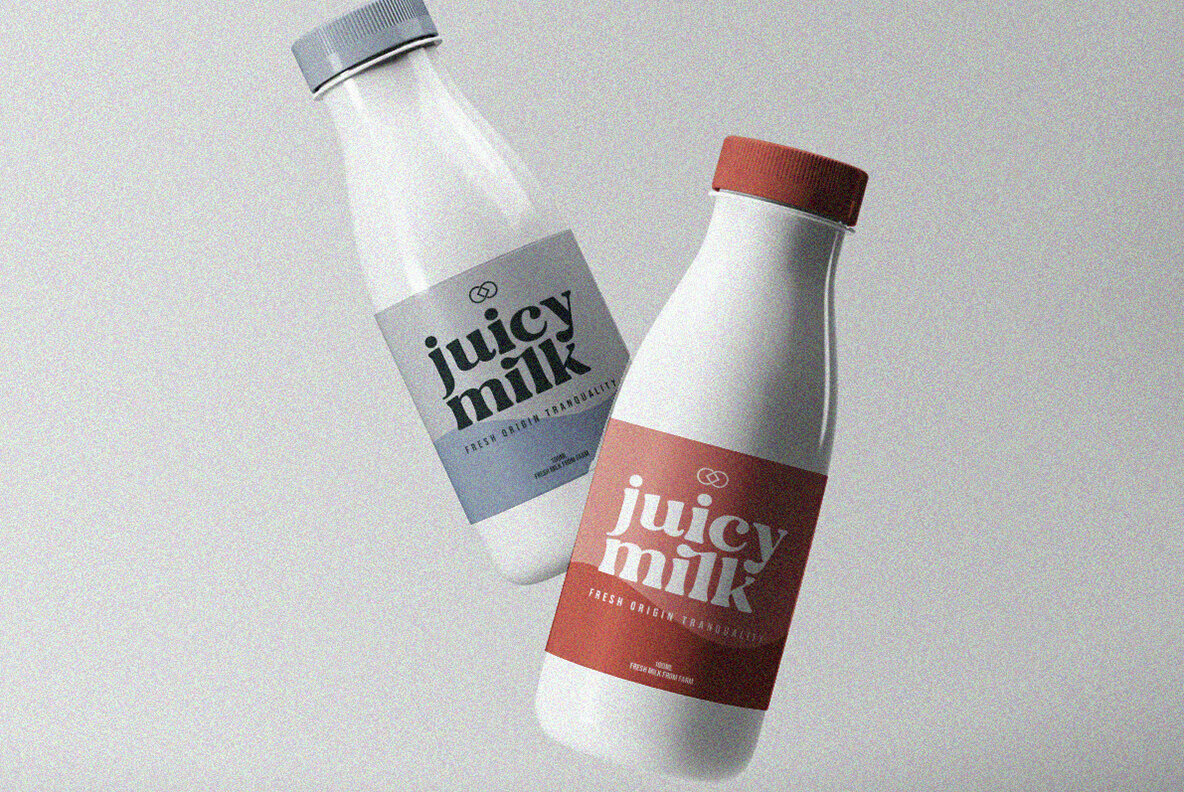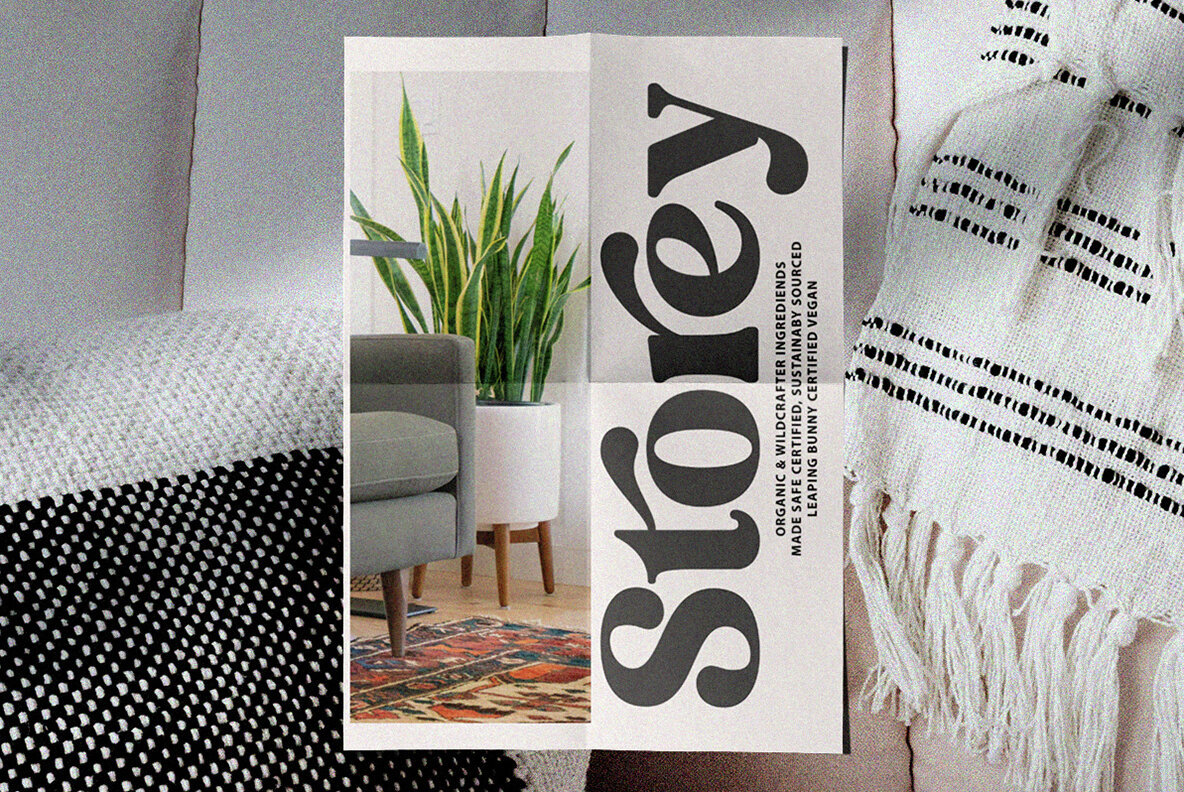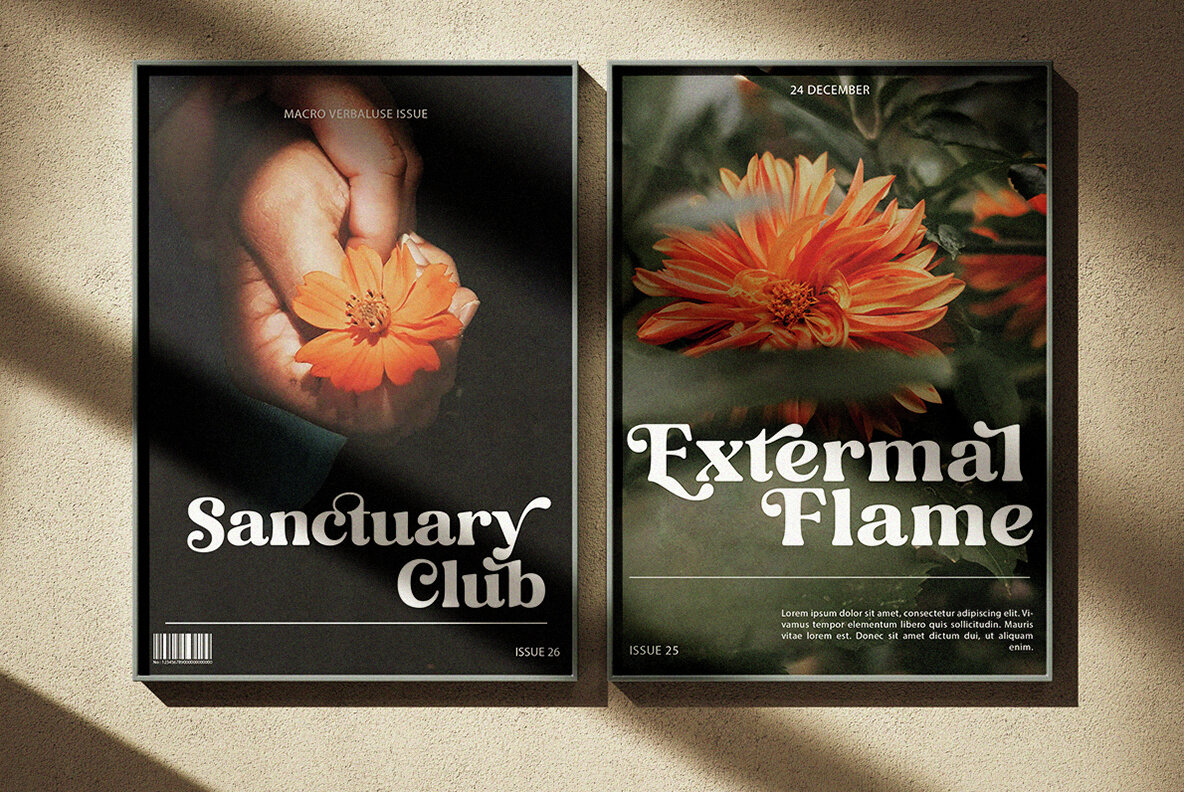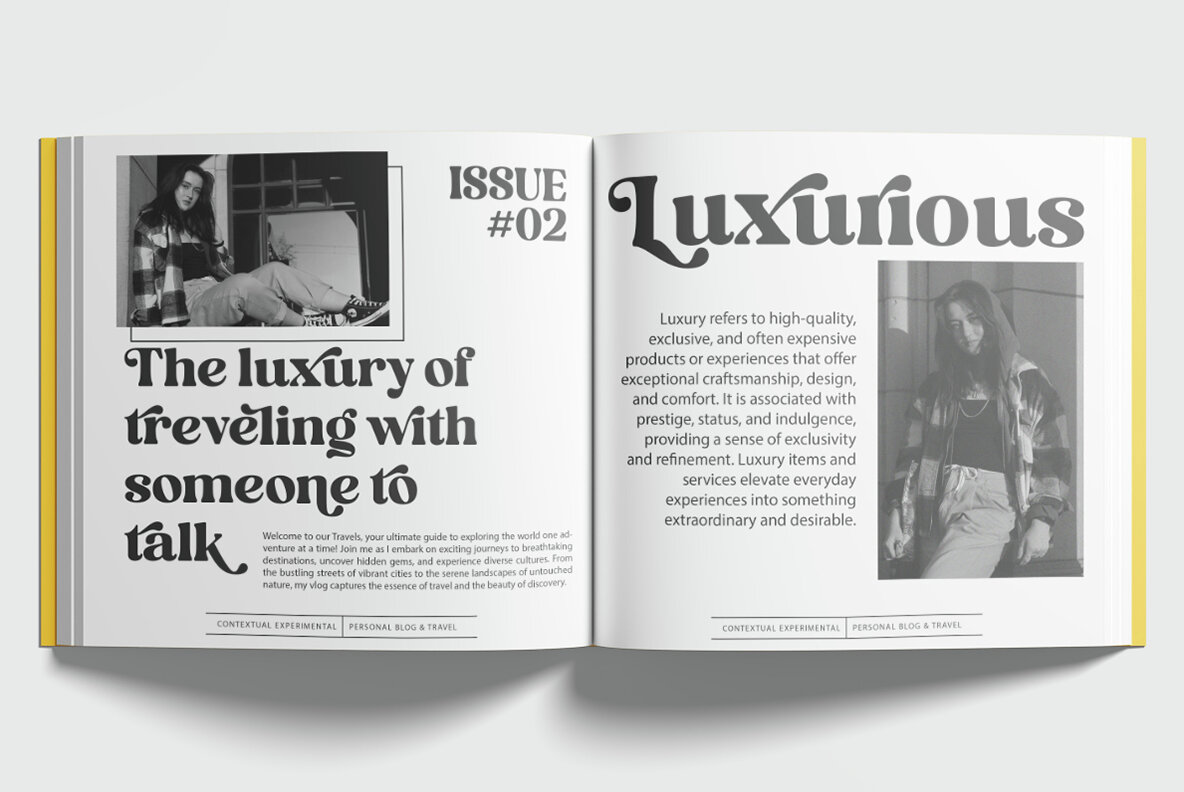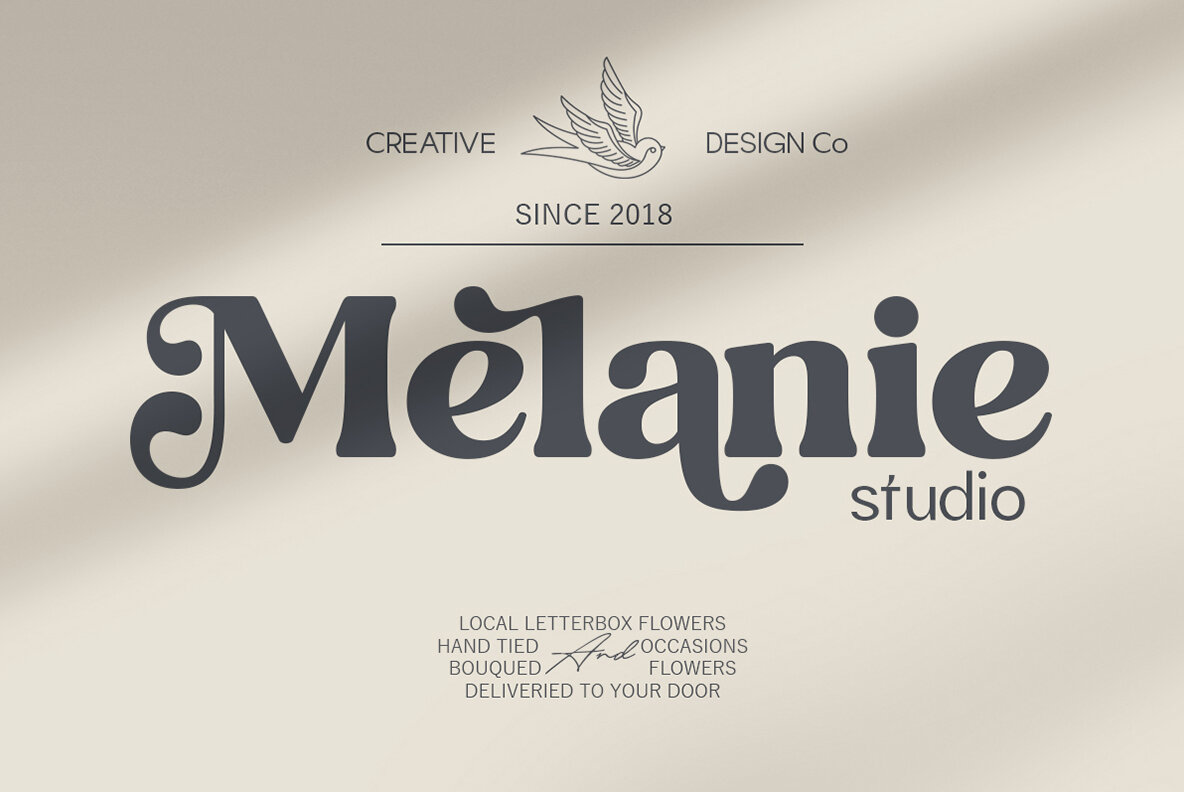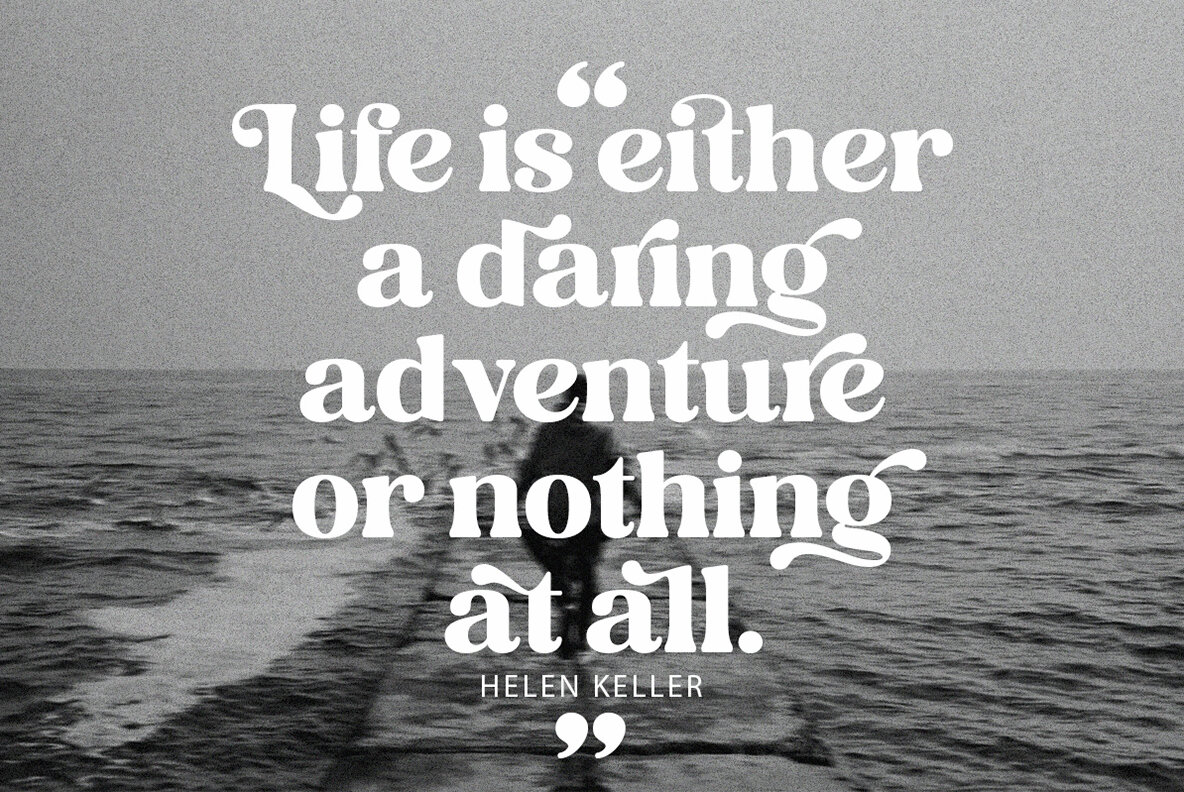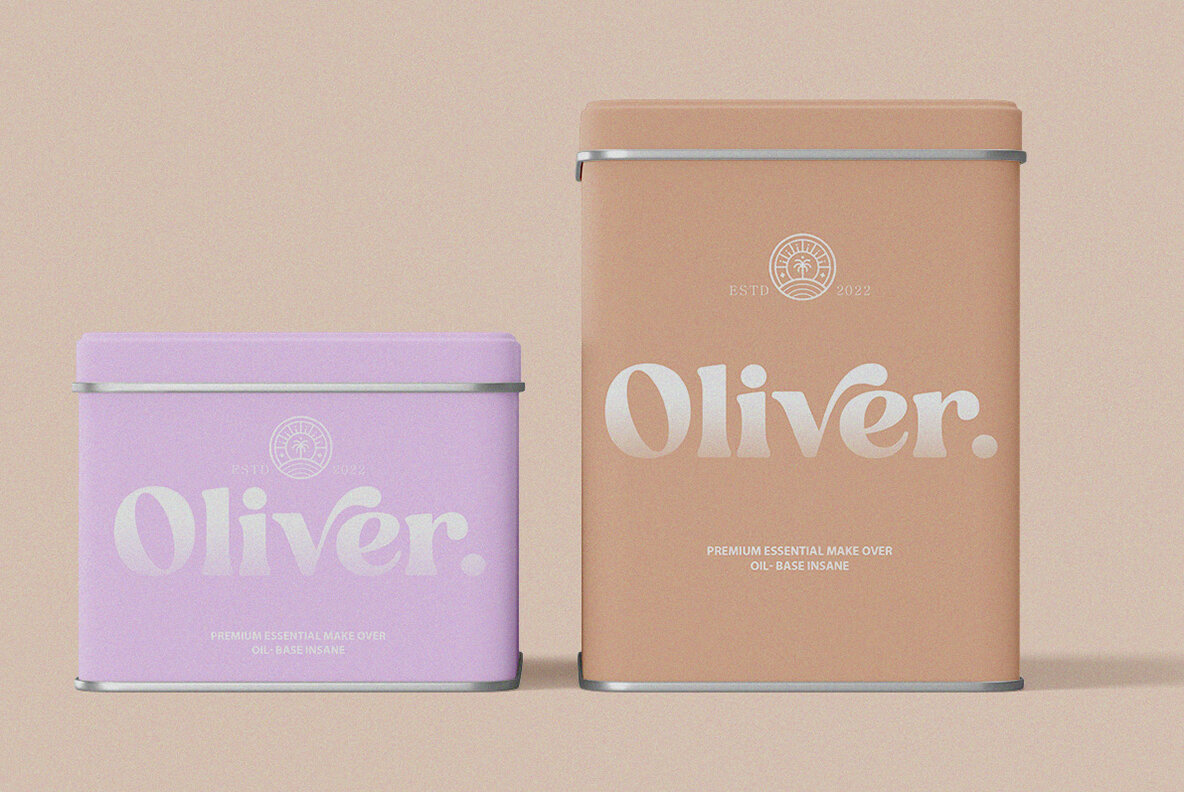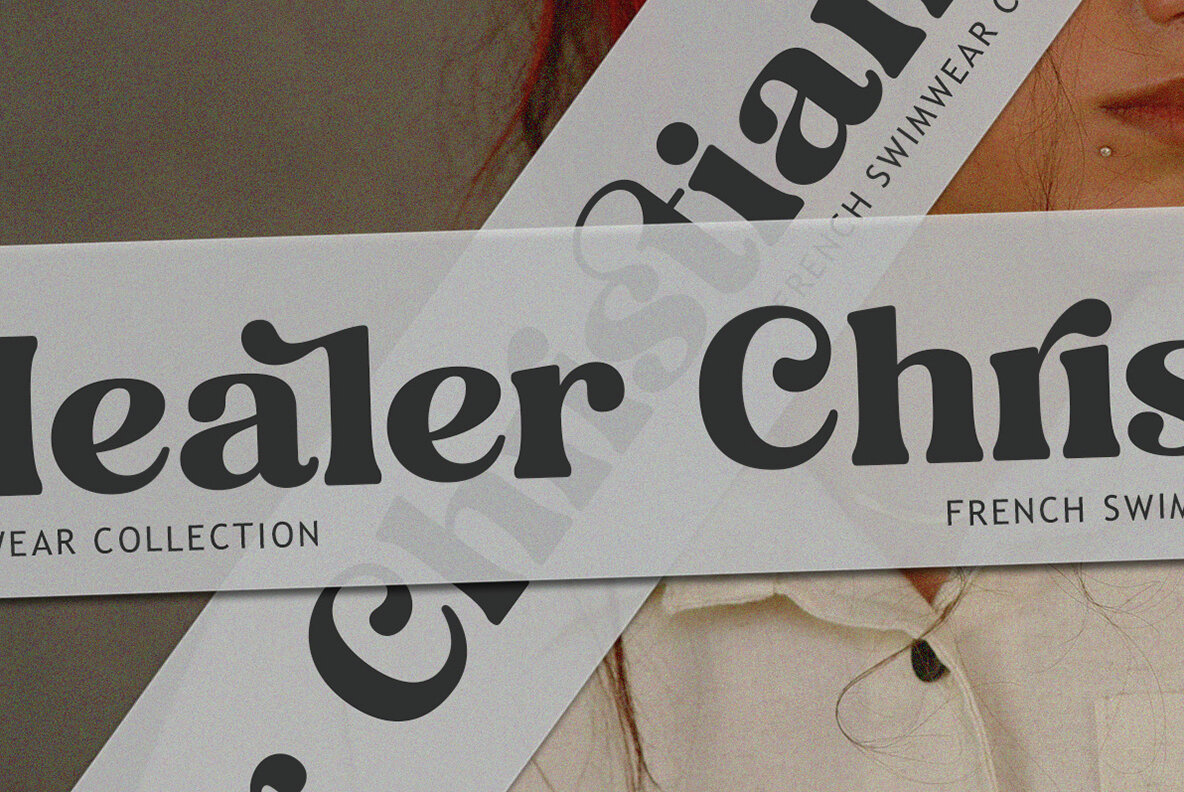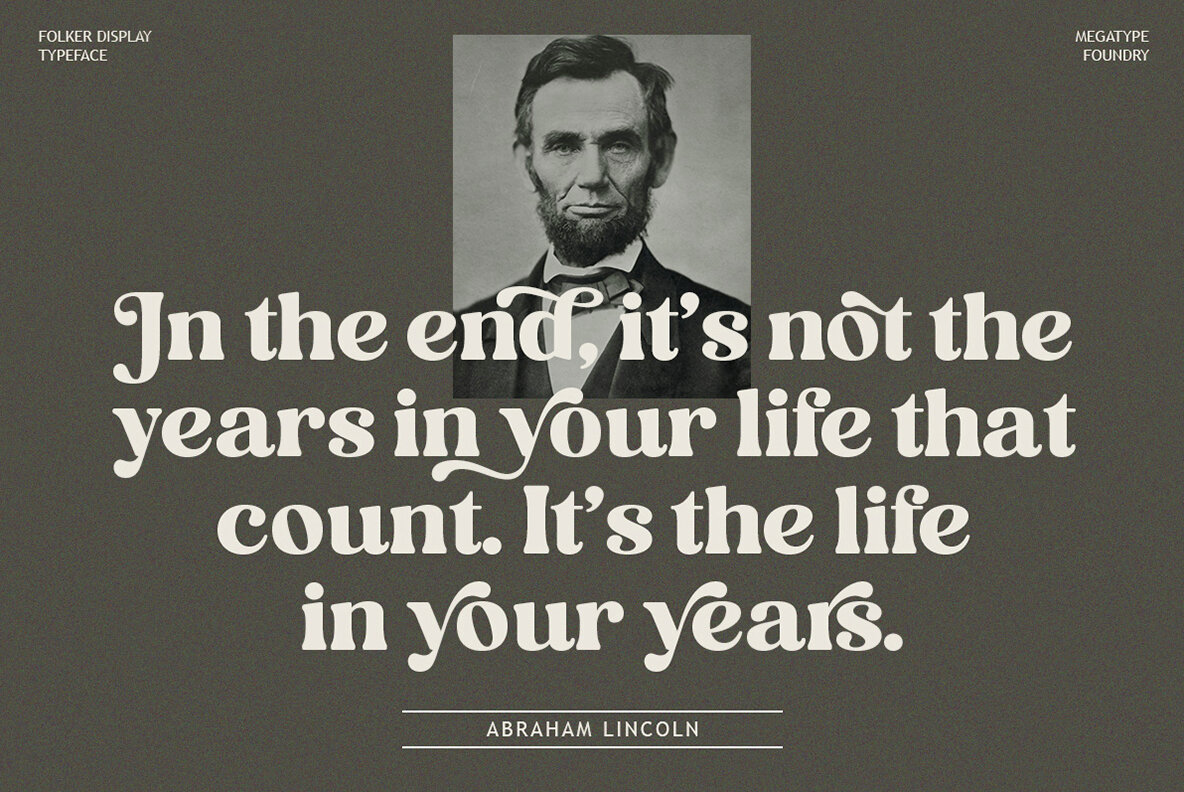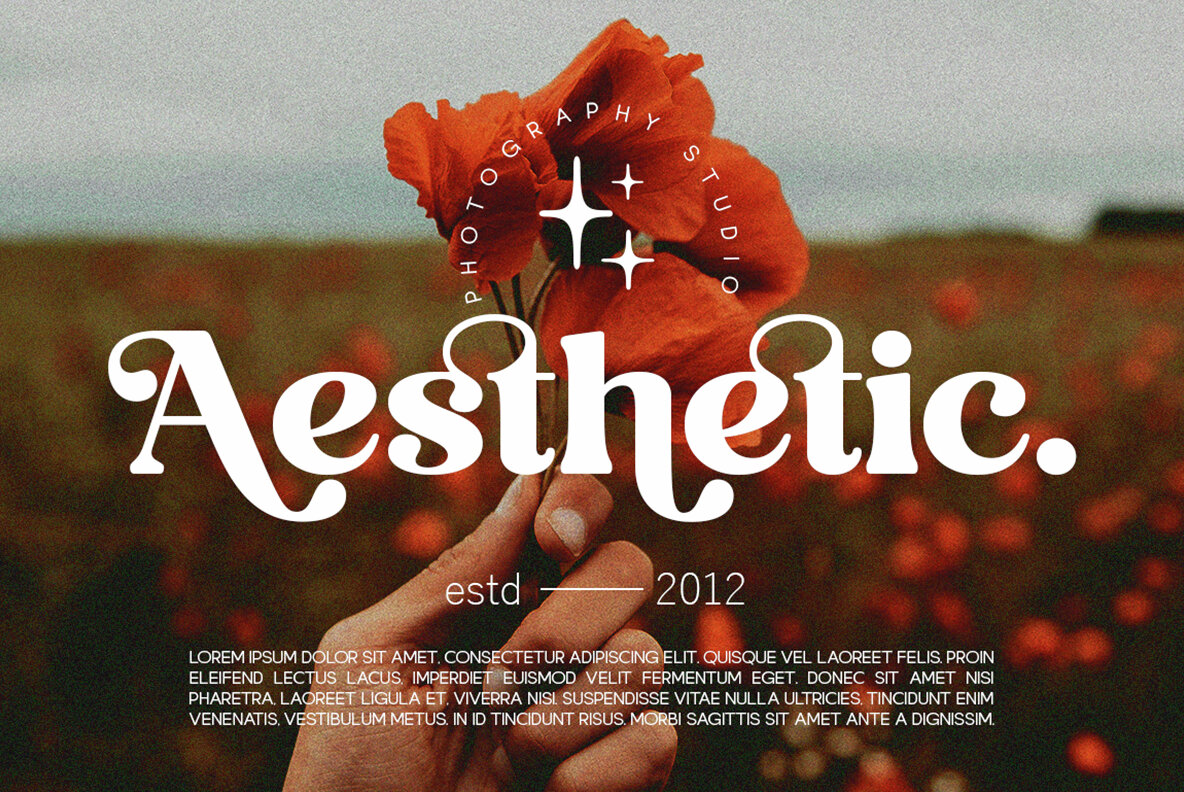
Folker Font
Introducing Folker – a brand new editorial display serif font that combines modern, classy, fun, and unique elements into a versatile typeface. This font shines at display size, making it perfect for headlines, while also maintaining readability in smaller text sizes. Folker includes a variety of unique alternatives and binders to enhance your design projects with creative flair.
Ideal for branding, logos, wedding designs, social media posts, advertisements, product packaging, and more, Folker is a go-to choice for any project requiring a sophisticated touch. This font offers both uppercase and lowercase characters, numbers, symbols, and supports multiple languages. Additionally, it features OpenType capabilities such as ligatures and alternates, with PUA encoded characters for added versatility.